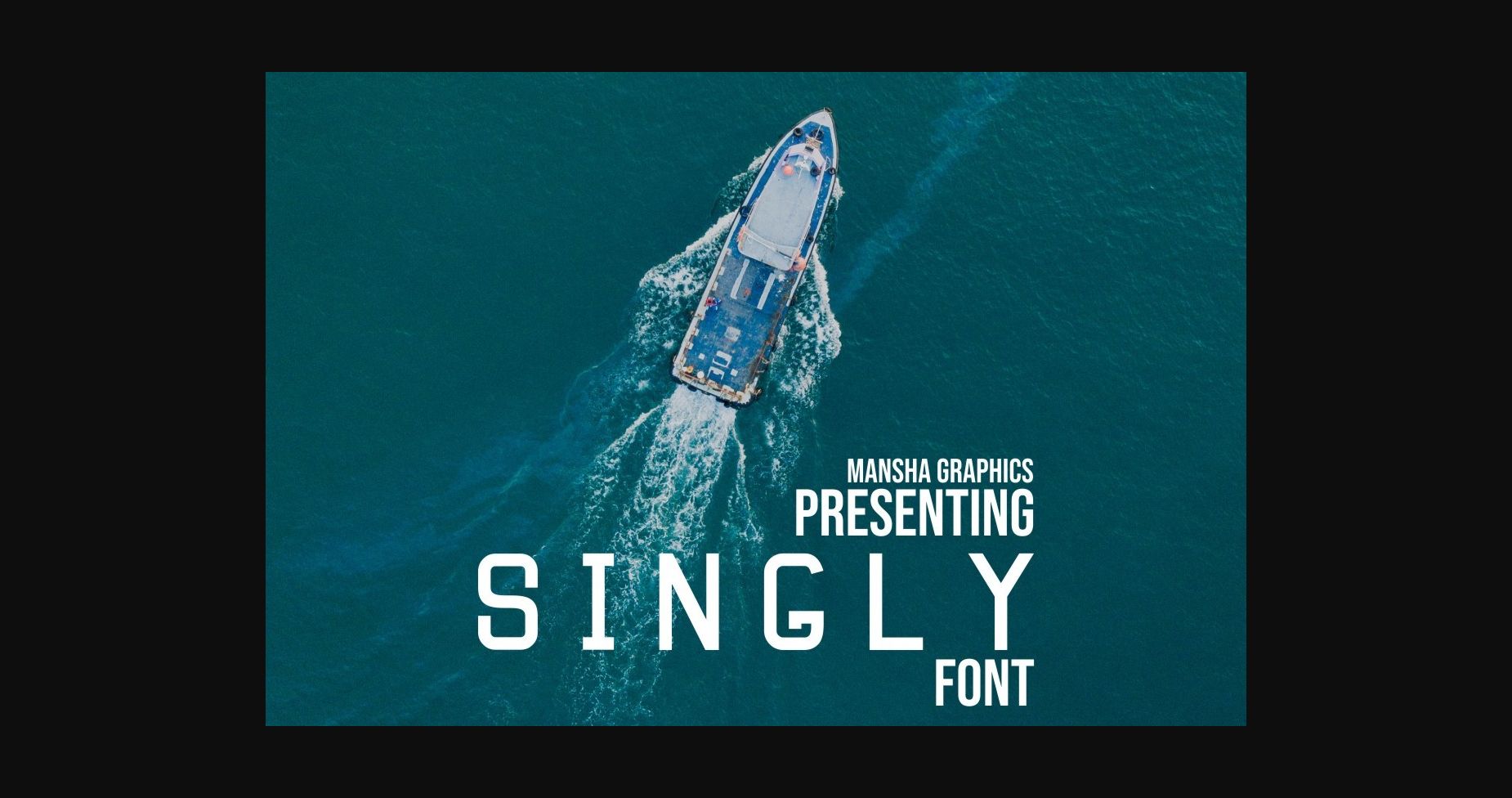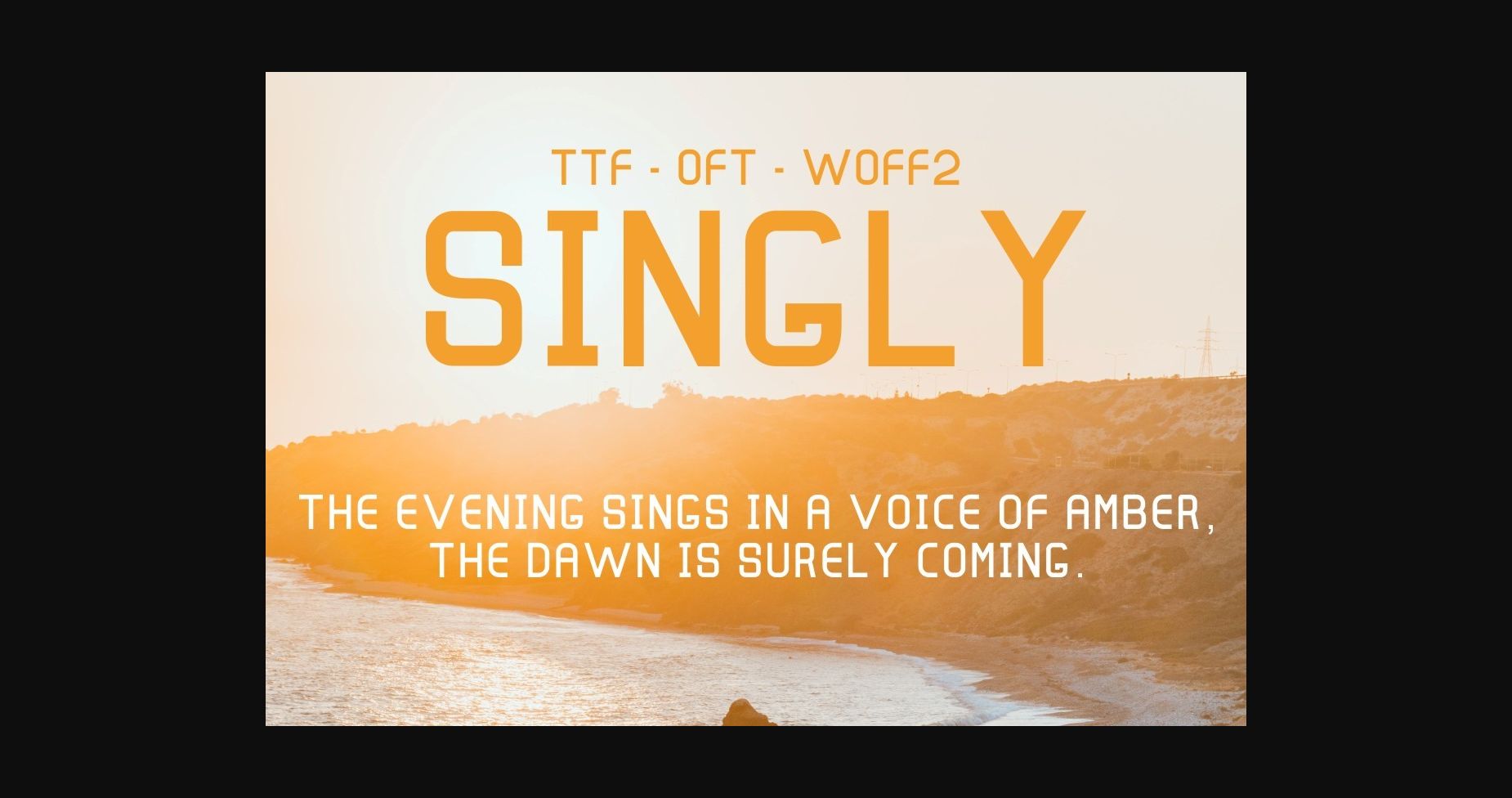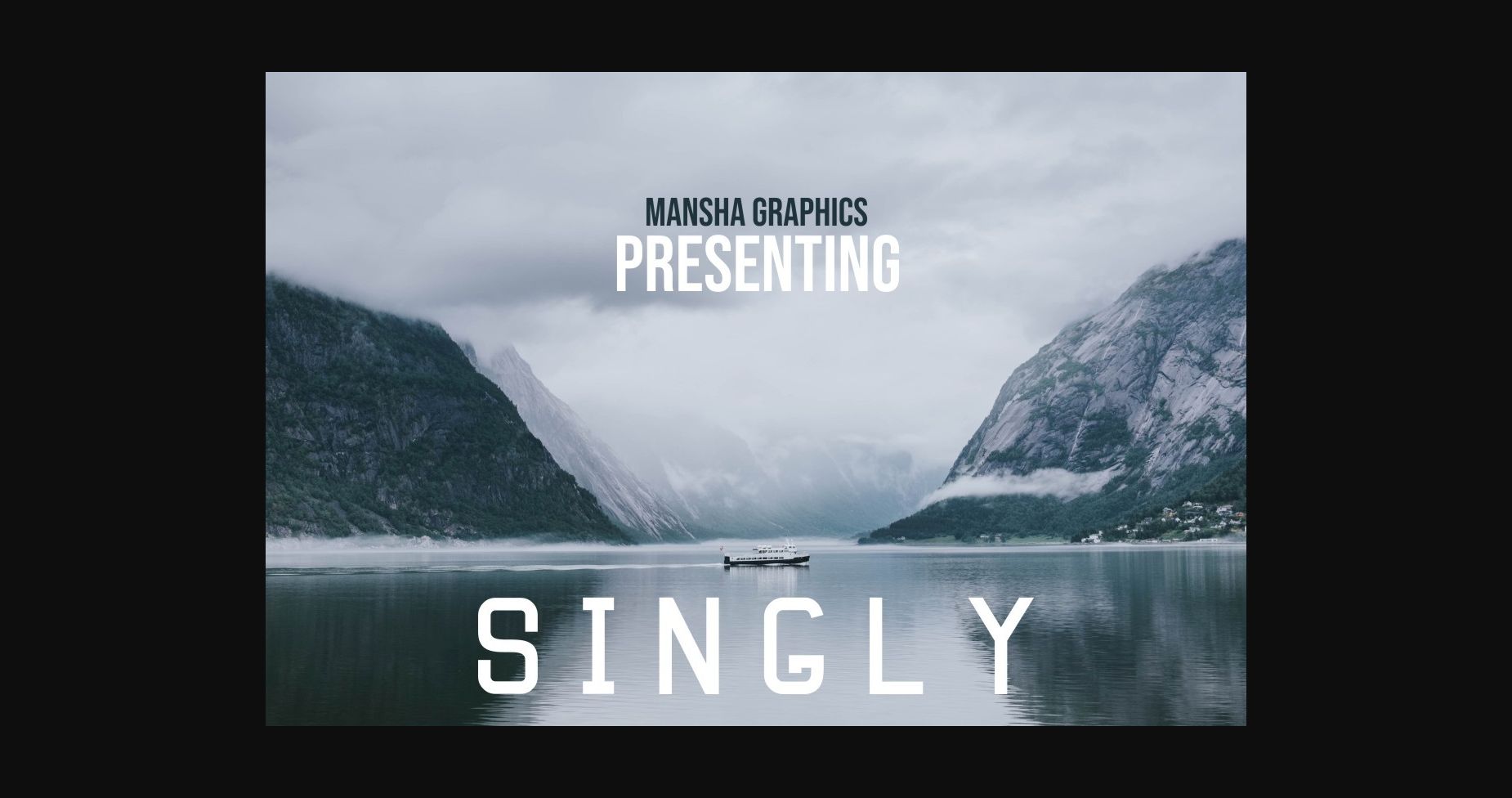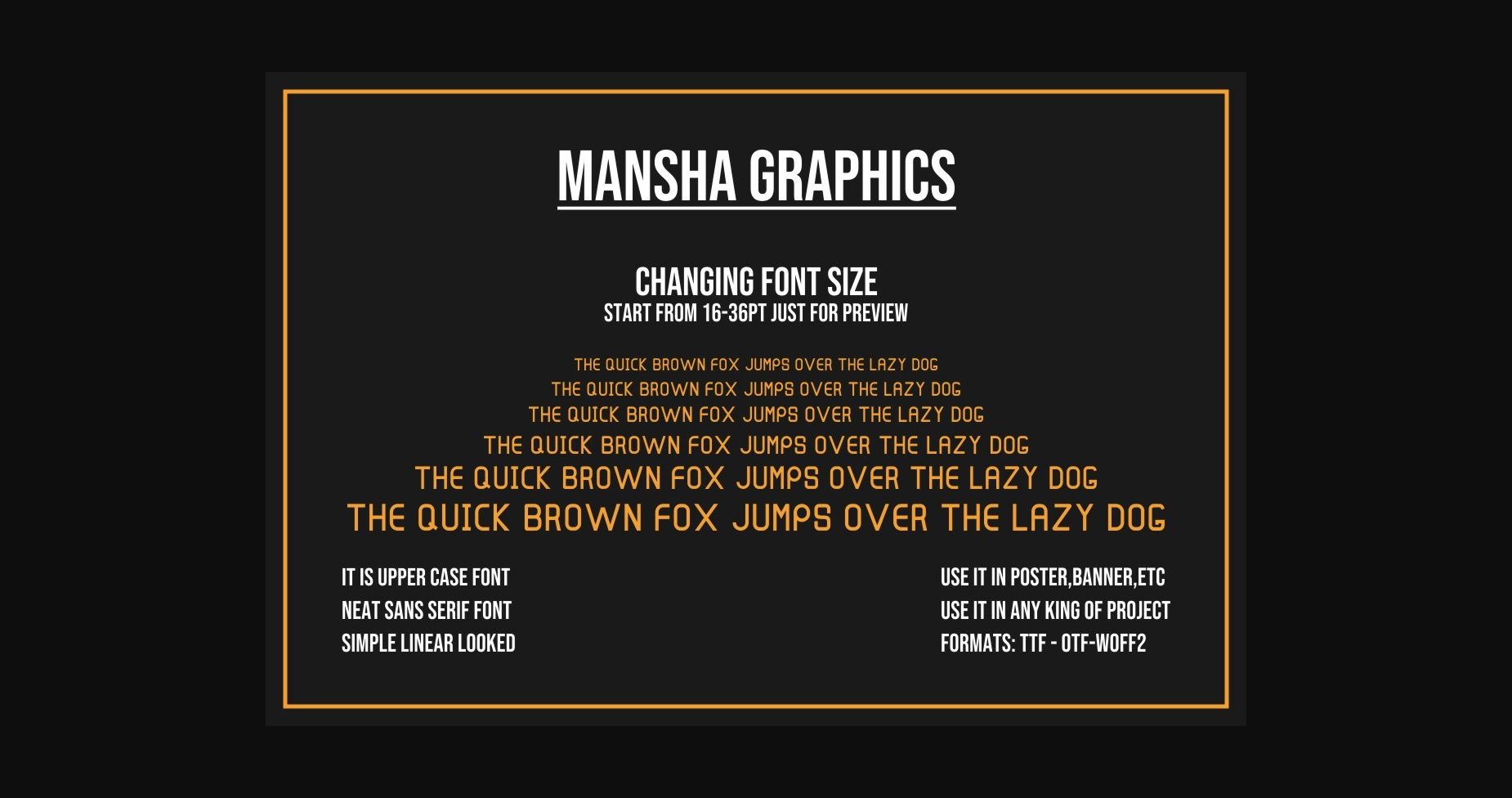
HomeSans Serif FontsSingly Font Sans Serif Fonts Singly Font FacebookXPinterestWhatsApp 1 of 6 ... Singly Font Poster 2... Singly Font Poster 3... Singly Font Poster 4... Singly Font Poster 5... Singly Font Poster 6... About Singly Font Singly is a casual sans serif font. Add it to your most creative ideas and notice how it makes them come alive! DOWNLOAD NOW People also explored Aprek Febux Font Sour Watermelon Font Sungarden Font Duty Calls BB Dollygirl Font Nachtron Bhuent Font Deen Haag Font Freshline Font Sard Font 336 0 TagsSinglySingly Font Previous articleMoloko FontNext articleLiberty Font LEAVE A REPLY Cancel reply Comment: Please enter your comment! Name:* Please enter your name here Email:* You have entered an incorrect email address! Please enter your email address here Website: Save my name, email, and website in this browser for the next time I comment. Personal Use Free Happy Rabbit Personal Use Free Read more about this font Lumber Personal Use Free Read more about this font Banana Valentine Personal Use Free Read more about this font Pelmeshka Personal Use Free Read more about this font BLOG Free Fonts Risk: Why Free Fonts Can Be Dangerous for Designers Free Fonts Risk: Why Free Fonts Can Be Dangerous for Designers Using free fonts is a common practice in web and graphic design. However, the... Top 7 Google Fonts Alternatives for Faster and Privacy-Friendly Web Design (2025) To increase your work productivity, choose the most readable fonts. Using Fonts in Digital Marketing: Tips to Strengthen Your Brand Identity